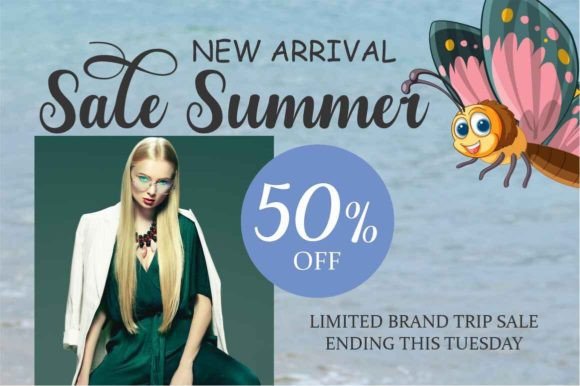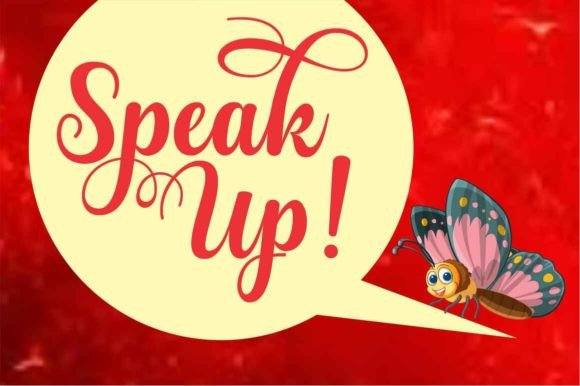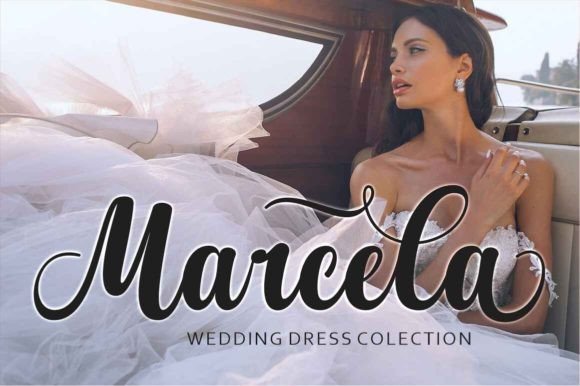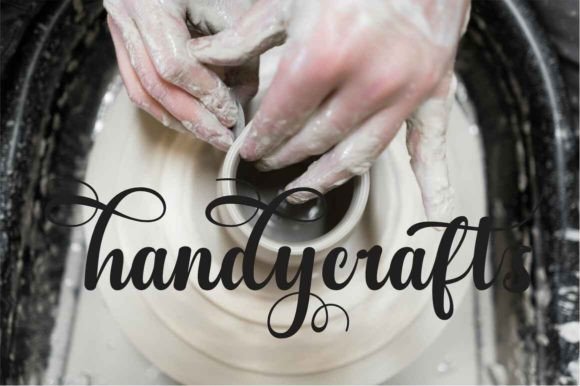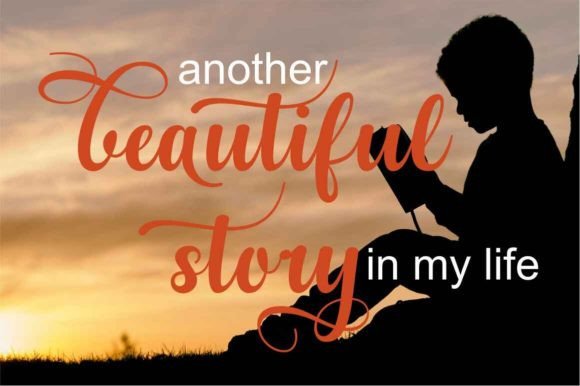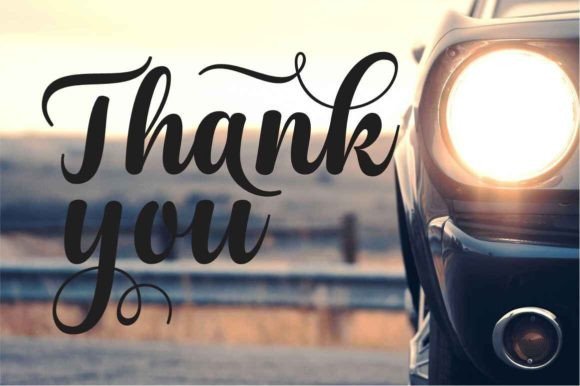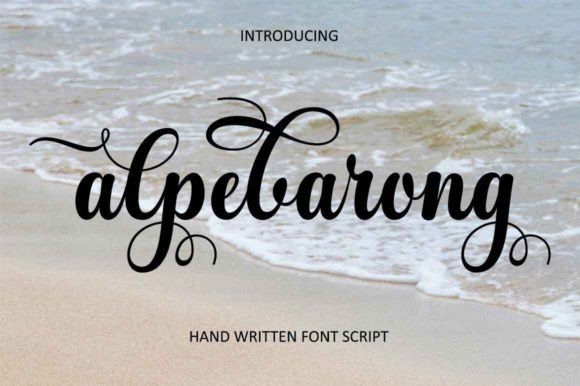
Introducing Alpebarong Font: The Perfect Handwritten Style for Creative Projects
Are you looking for a font that can add a personal touch to your creative projects? Do you want to make your designs stand out with a playful and casual look? Look no further than Alpebarong Font! In this article, we’ll explore the features and benefits of Alpebarong Font, and how it can elevate your designs to the next level.
What is Alpebarong Font?
Alpebarong Font is a handwritten font designed with a playful and casual look in mind. The letters have a natural, hand-drawn style that gives them a unique and charming appearance. This font is perfect for designers and crafters who want to add a friendly and personal touch to their projects.
Key Features of Alpebarong Font
• Handwritten style: Alpebarong Font has a natural, hand-drawn look that makes it perfect for creative projects.
• Playful and casual: The font has a playful and casual appearance that adds a friendly touch to any text.
• Unique lettering: Each letter has a unique and charming appearance that sets Alpebarong Font apart from other fonts.
• Easy to read: Despite its handwritten style, Alpebarong Font is easy to read and understand.
Best Uses for Alpebarong Font
Alpebarong Font is perfect for a variety of creative projects, including:
• Greeting cards: Add a personal touch to your greeting cards with Alpebarong Font.
• Posters: Use Alpebarong Font to create eye-catching posters that stand out.
• Invitations: Make your invitations more special with Alpebarong Font.
• Social media graphics: Use Alpebarong Font to add a playful touch to your social media graphics.
• Branding: Alpebarong Font can also be used for branding purposes, such as creating a unique logo or tagline.
Benefits of Using Alpebarong Font
There are many benefits to using Alpebarong Font in your creative projects. Here are a few:
• Adds a personal touch: Alpebarong Font adds a friendly and personal touch to any text.
• Stand out from the crowd: The unique and playful appearance of Alpebarong Font makes it perfect for designers who want to stand out from the crowd.
• Versatile: Alpebarong Font can be used for a variety of creative projects, from greeting cards to posters.
Tips for Using Alpebarong Font
Here are a few tips for using Alpebarong Font in your creative projects:
• Use it sparingly: Alpebarong Font is best used sparingly, such as in headings or titles.
• Pair it with other fonts: Alpebarong Font can be paired with other fonts to create a unique and interesting look.
• Experiment with colors: Alpebarong Font looks great in a variety of colors, so don’t be afraid to experiment.
Alpebarong Font is a unique and playful handwritten font that’s perfect for creative projects. With its natural, hand-drawn style and friendly appearance, it’s sure to add a personal touch to any text. Whether you’re a designer or crafter, Alpebarong Font is a great choice for anyone looking to add a little extra something to their designs.